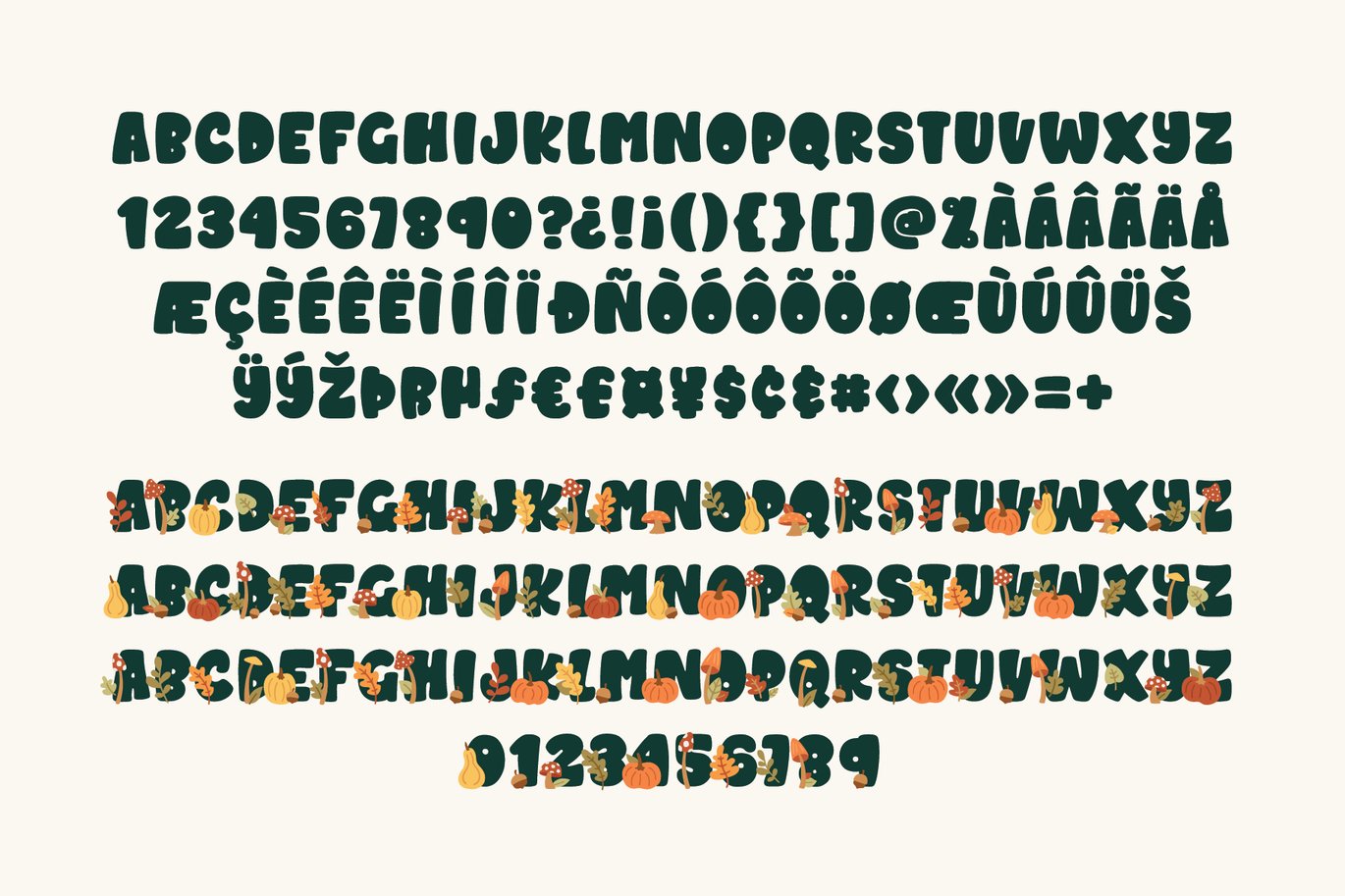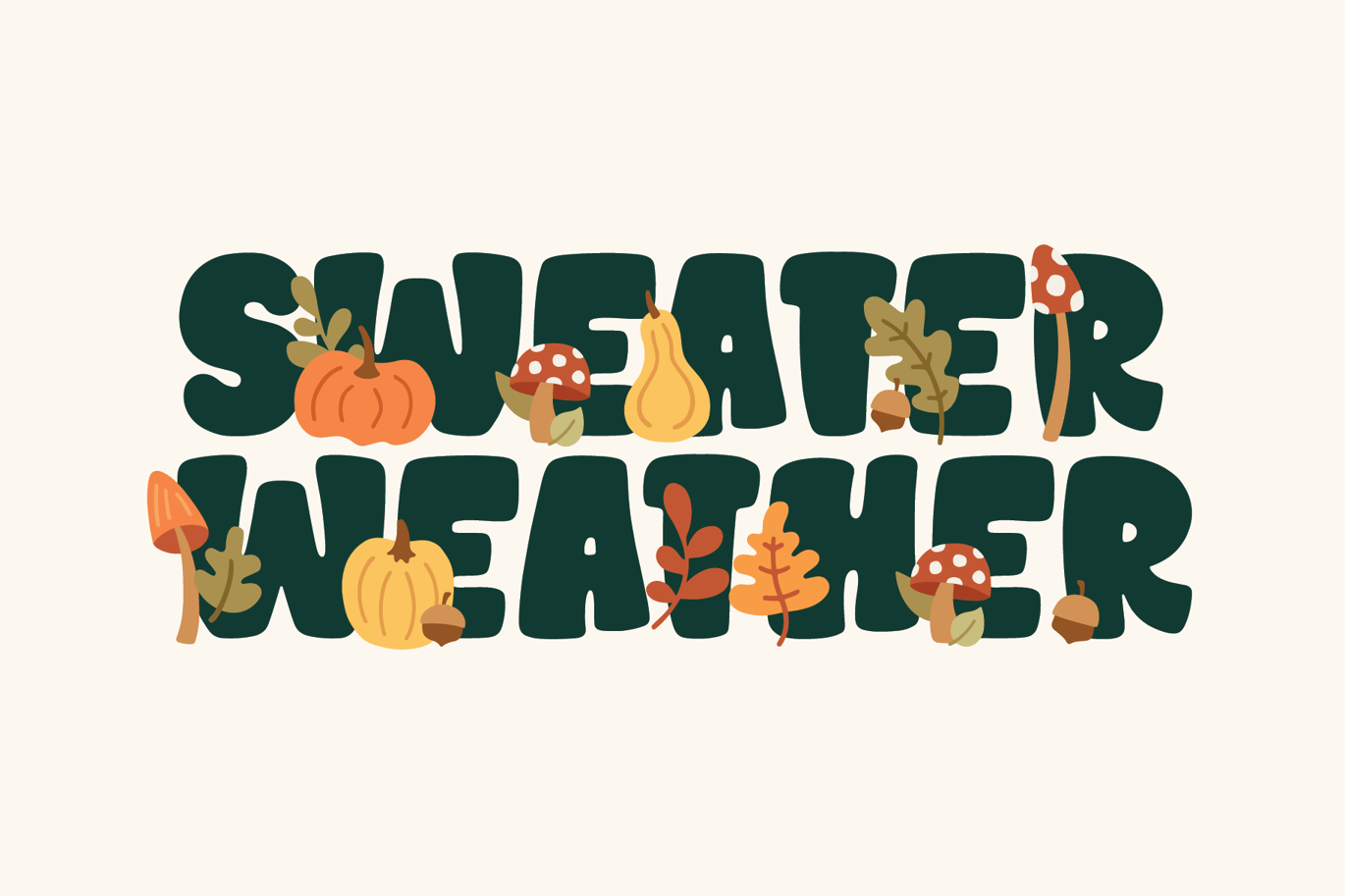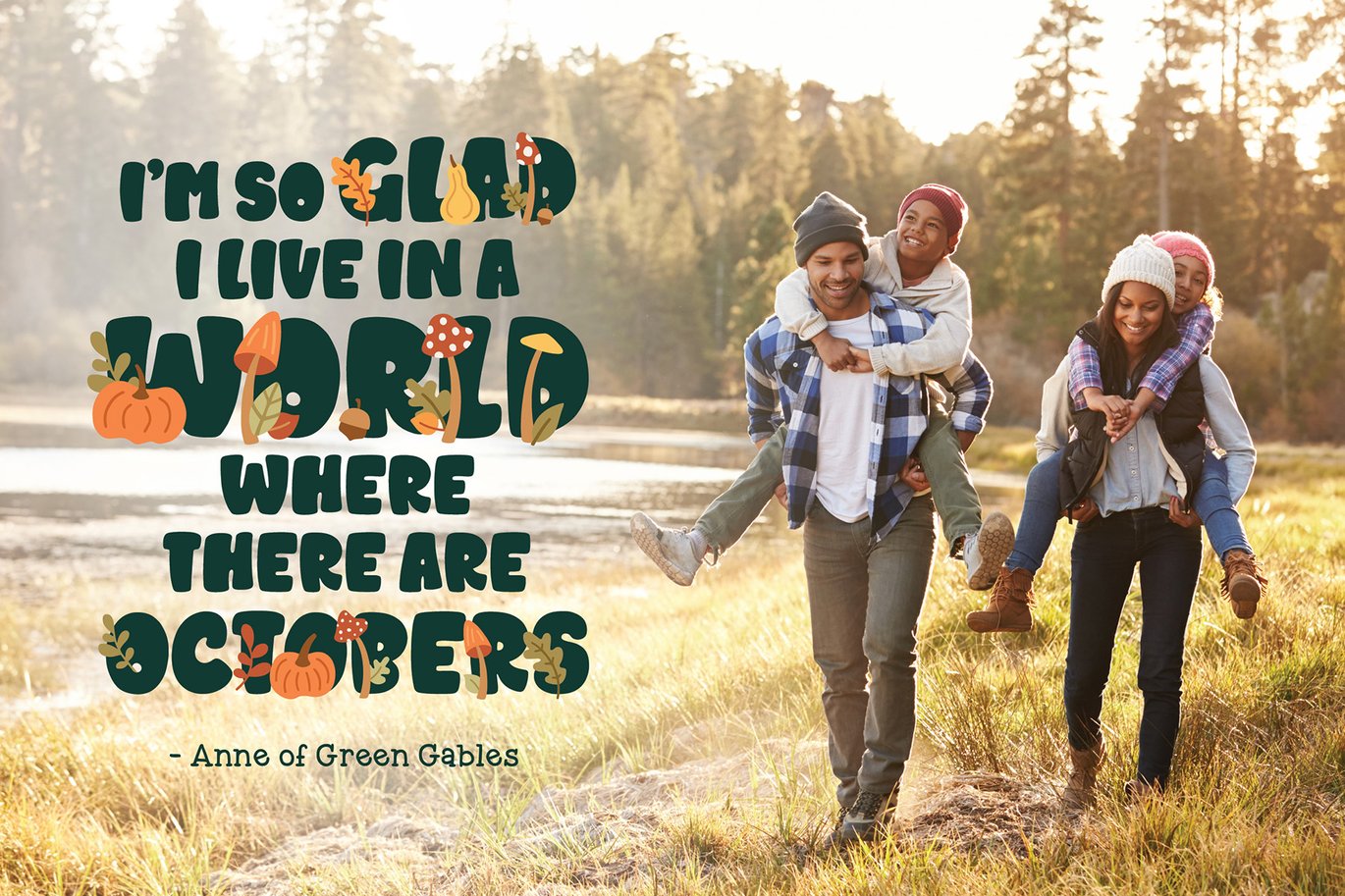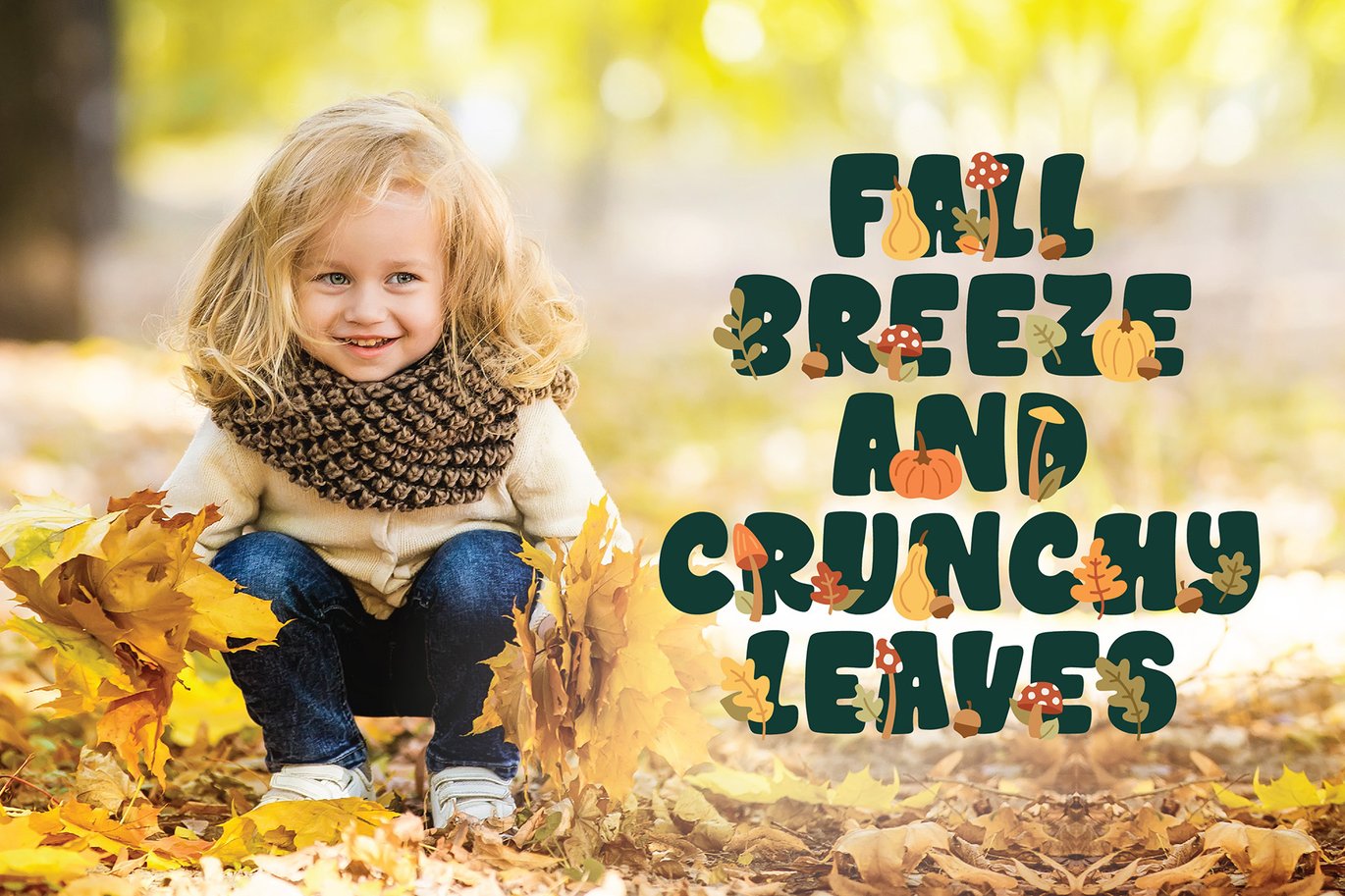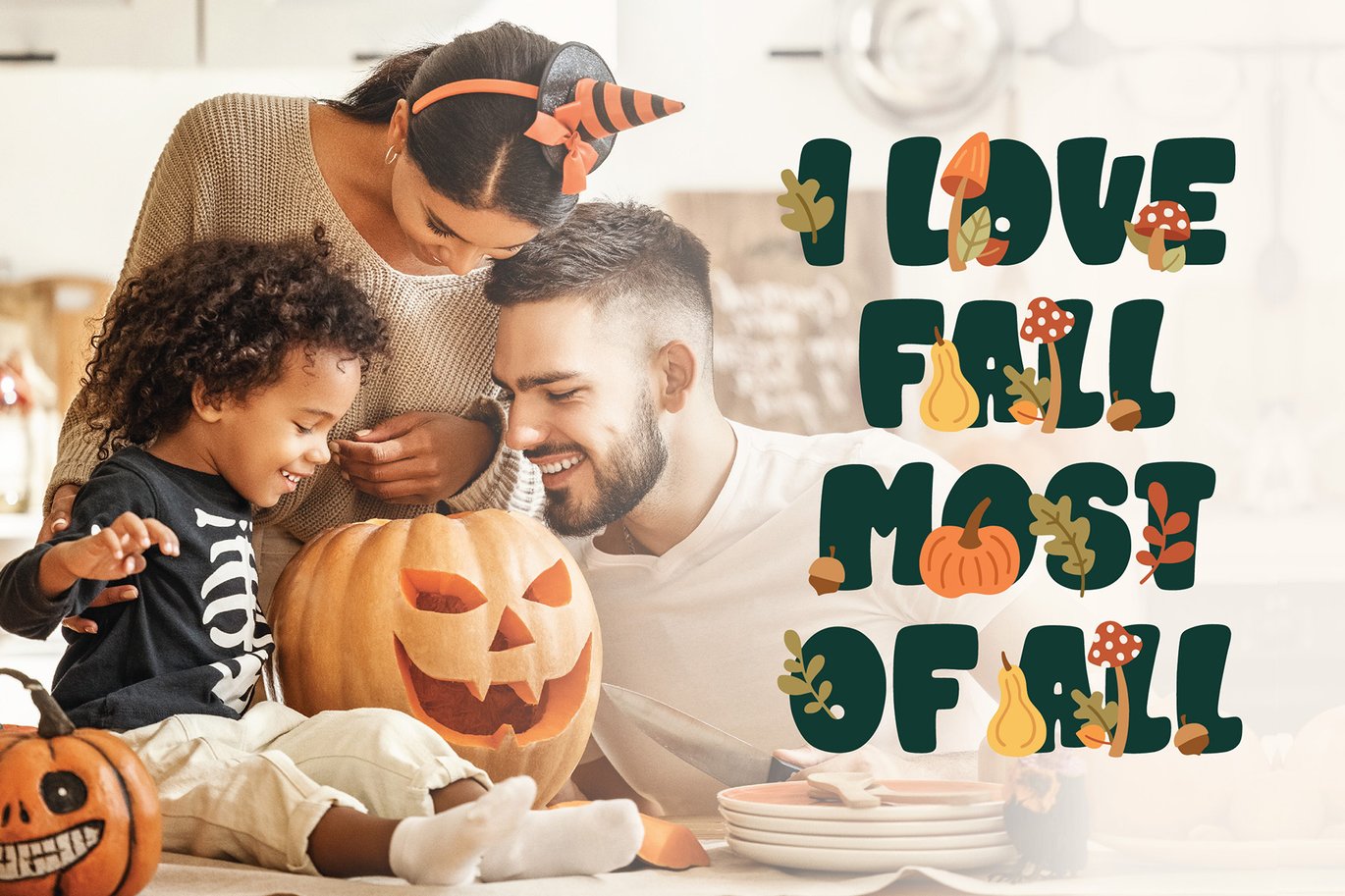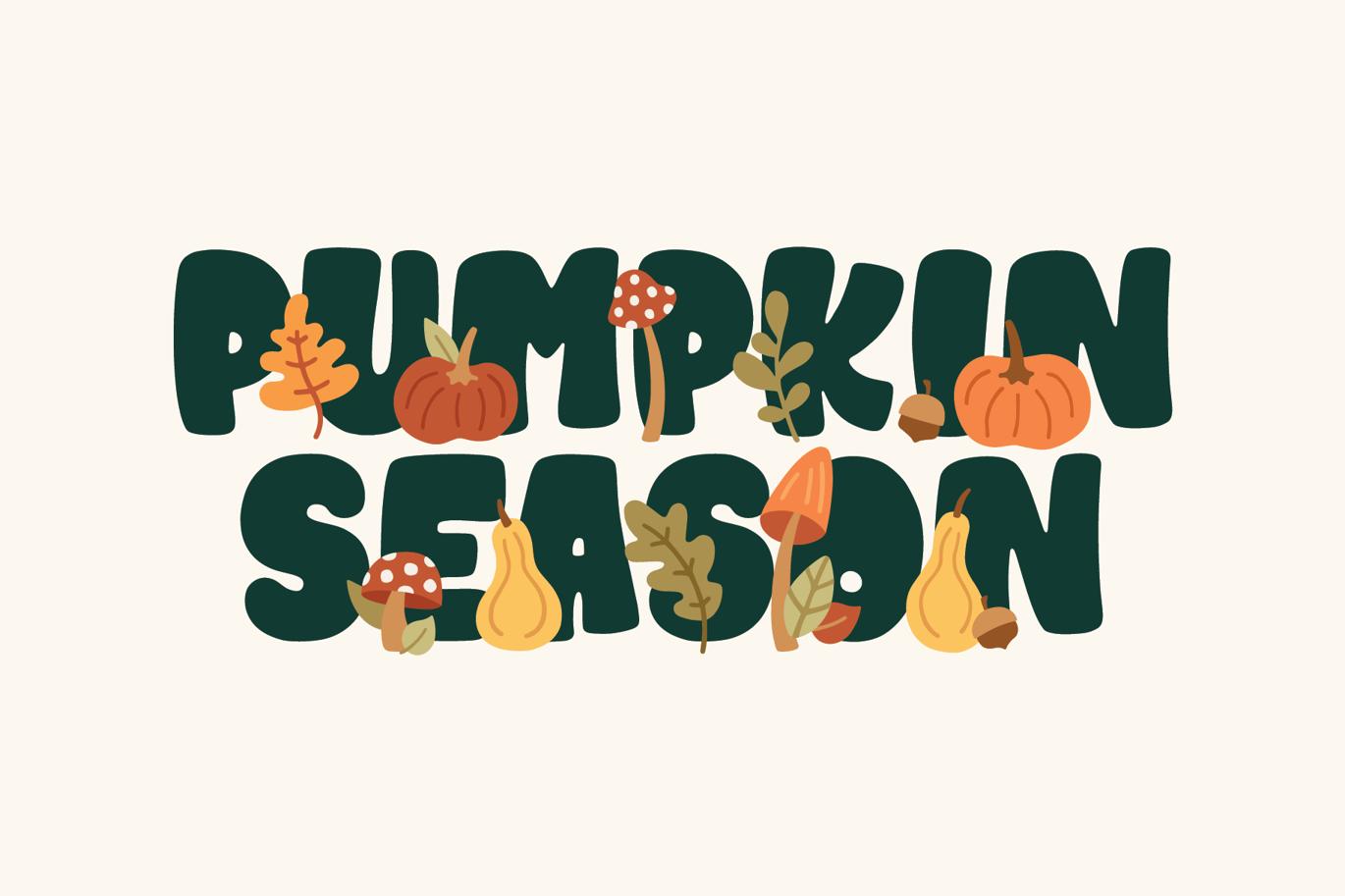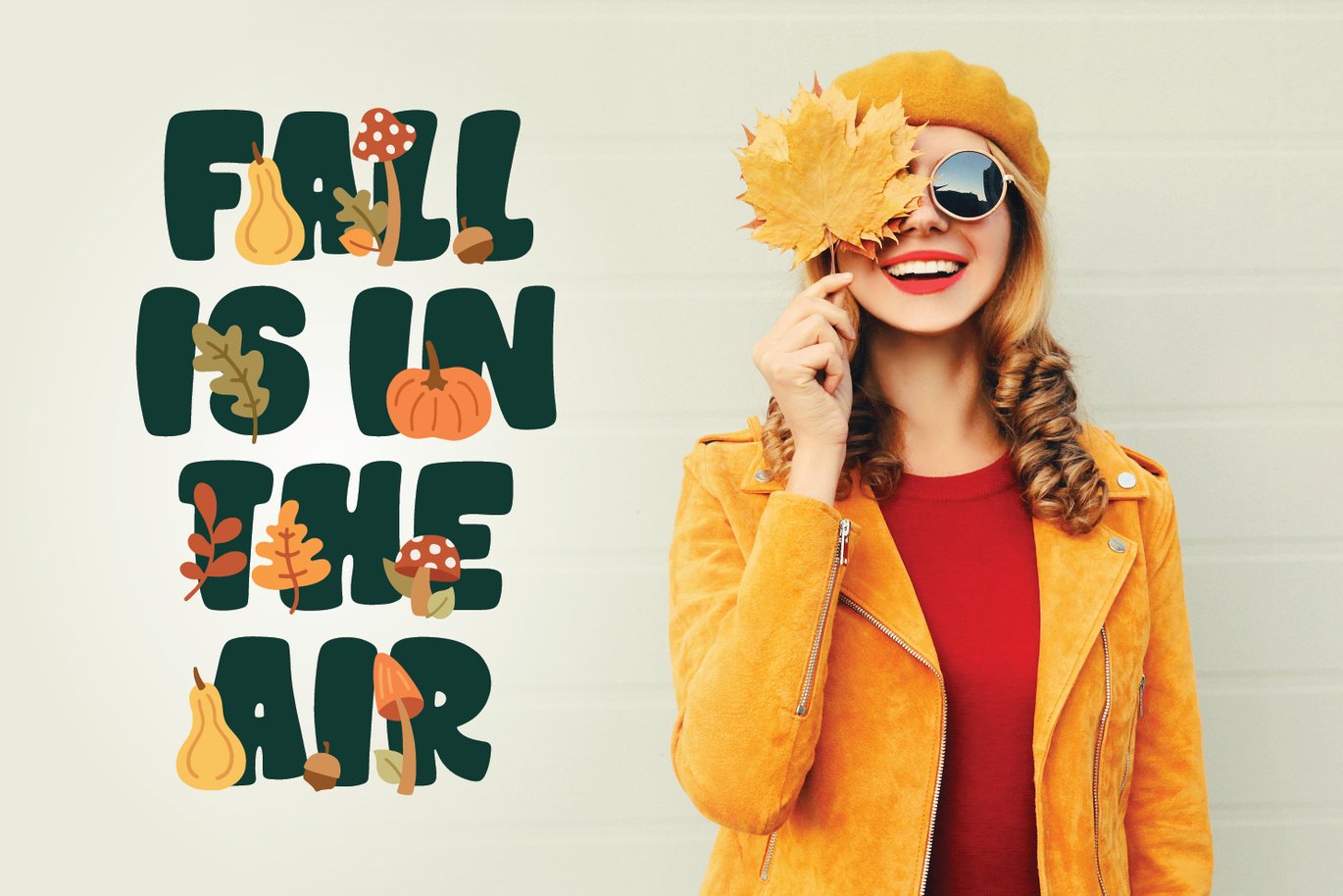
Howdy Pumpkin Font
Howdy Pumpkin is an autumn inspired all-caps font. Included in the pack is a simple OpenType version and two color OpenType-SVG versions that have alternates of each letter with different doodles. Mix and match until your design looks just right.